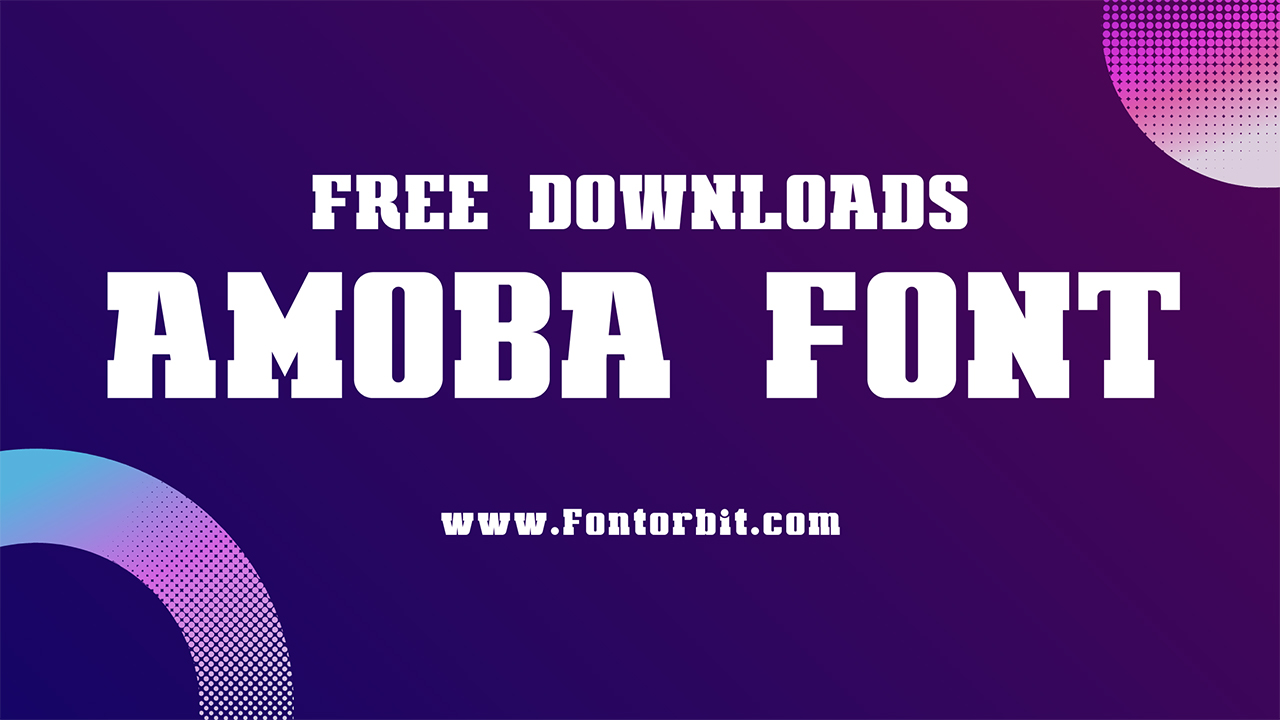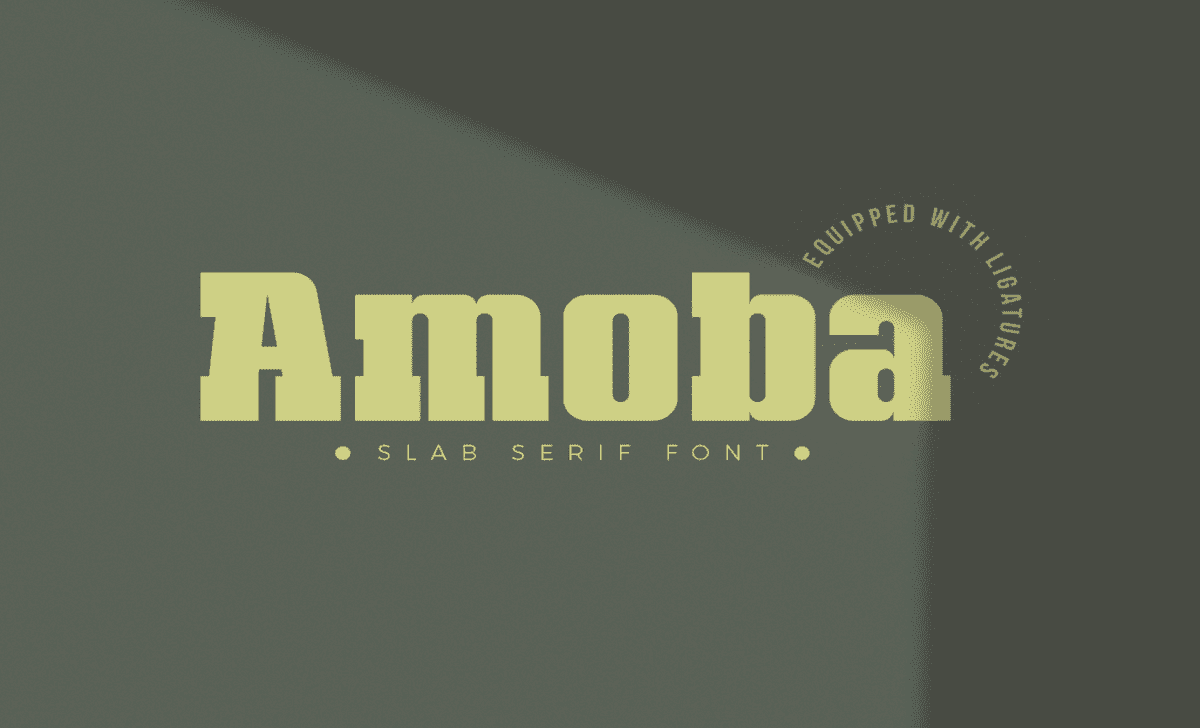
Amoba Font is an ultra-thick slab serif typeface created by Ari Juanda and published by Linecreative. Known for its bold and robust design, Amoba Font features a heavy slab-serif style that is perfect for impactful and striking visuals.
Characterized by its thick and sturdy letterforms, Amoba offers both uppercase and lowercase characters along with ligatures, giving designers a versatile tool for creating without limits.
Amoba Font is a popular choice for designers looking for a distinctive and powerful typeface. Its thick, slab-serif design makes it ideal for headlines and display text. The font is available in various formats and includes a comprehensive character set that supports Latin Western Europe languages, making it adaptable for a wide range of design needs.
- Amoba Regular
- Amoba Italic
- Amoba Bold
Amoba Font shines in various design applications, particularly where boldness and clarity are essential. Some of its primary uses include:
- logos
- brochures
- website designs
- flyers
- other graphic designs
Amoba Font Found Tn Use
Amoba Font is prominently used in various design contexts, where its bold, slab-serif design creates a commanding and memorable presence. Its versatility is evident in its application across different mediums, from impactful advertising and sleek magazine covers to contemporary website headers and elegant product packaging.
The Amoba Font stands out in various design contexts due to its robust and thick slab-serif characteristics. It works exceptionally well for both digital and print media, making it a versatile choice for designers. With its combination of boldness, clarity, and a touch of quirkiness, Amoba Font integrates smoothly into modern design workflows, whether for branding, marketing materials, or elegant stationery.
Amoba Font works well in a variety of sizes. For headlines, use sizes 24pt and above to ensure impact, and for body text, sizes between 12pt and 18pt are ideal for readability while maintaining the font’s bold characteristics.
Amoba Font pairs well with simple, clean sans-serif fonts like Helvetica or Roboto for body text, and with elegant serif fonts like Merriweather or Georgia for a balanced, sophisticated look.
Amoba Font works beautifully with high-contrast color schemes, such as black on white or white on dark backgrounds. It also pairs well with vibrant colors for a modern, eye-catching design.